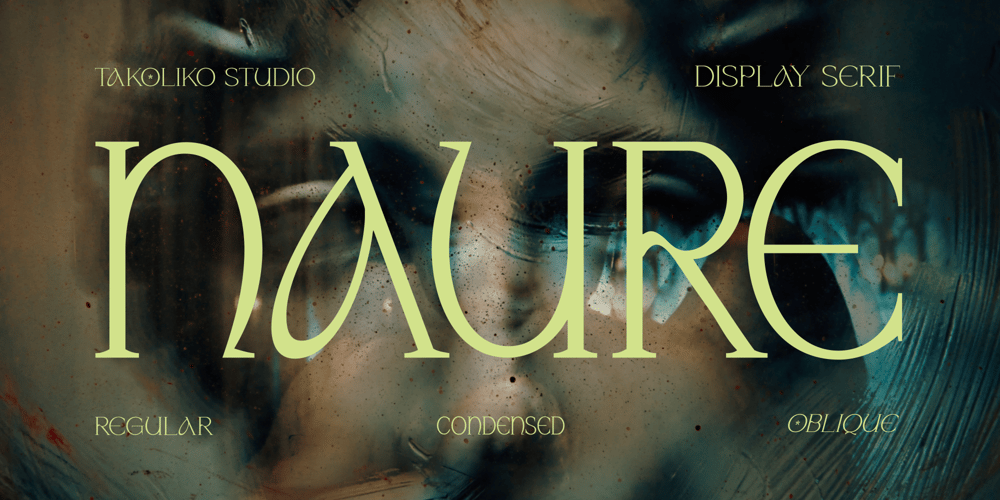
Naure Font Family was designed by Deni Hidayat and published by takoliko. Naure contains 4 styles and family package options. NAURE is a vintage classy serif typeface, with a little roman soul on it. It comes with regular, condensed, and oblique style. It have a curve that give a unique yet elegant feel at the same time. The strong characteristic makes it suitable for attention grabbing design projects